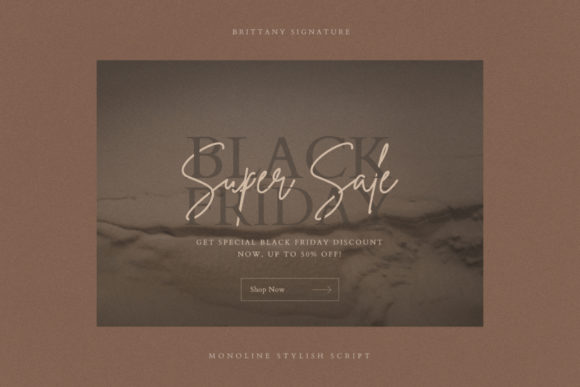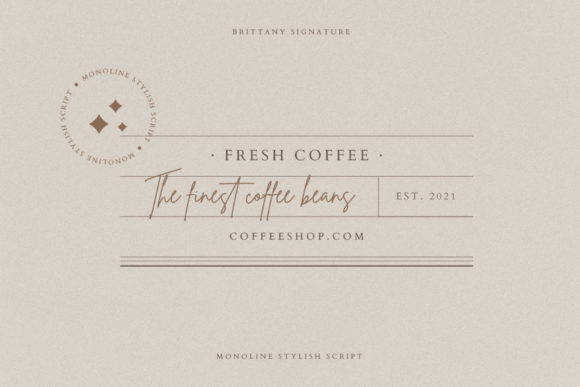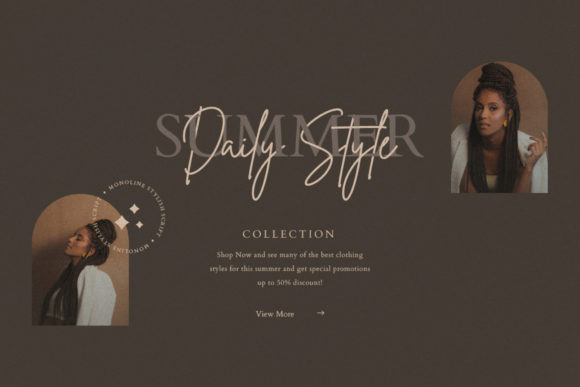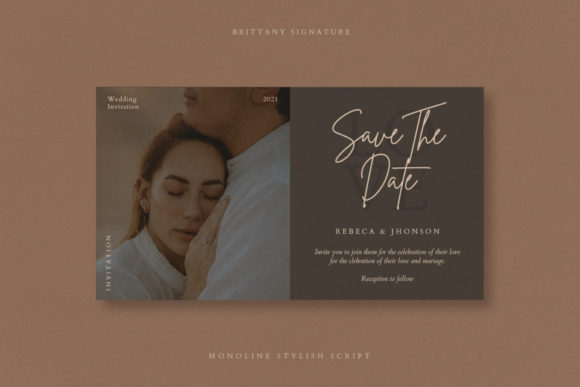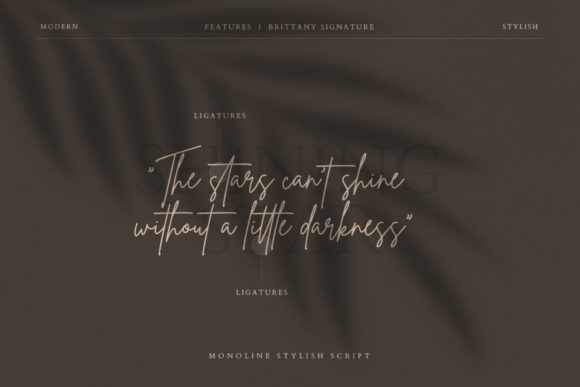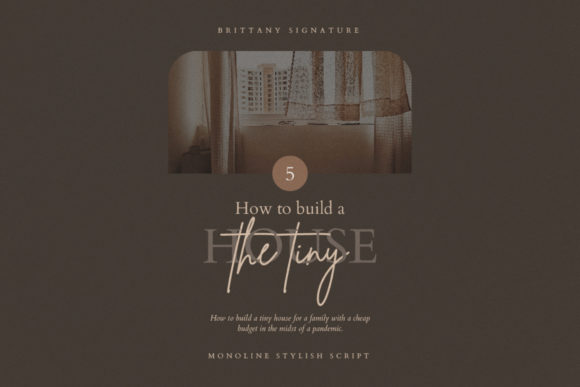
Adding a Touch of Elegance: The Power of the Brittany Signature Script Font
Have you ever been working on a design project and suddenly, the perfect font pops into your head? Maybe it’s a handwritten script that screams ‘sophistication’ or a bold sans-serif that demands attention. For many designers, the search for that elusive font is a daily challenge. But what if we told you that we’ve found the perfect solution – the Brittany Signature Script Font?
This stylish script font is designed to evoke the feeling of a personal signature, with its flowing curves and elegant inky flow. Whether you’re creating a logo, wedding invitation, or social media post, the Brittany Signature Script Font is the perfect addition to your design arsenal. Its versatility and sophistication make it a valuable asset for designers looking to add a touch of elegance to their work.
Brittany Signature Script Font Key Features
- Unique Characteristics: Elegant, cursive script with a touch of vintage charm, ideal for signature-style typography and creative projects
- Language Support: Supports multiple languages, including English, Spanish, French, German, Italian, and many more
- Font Weight: Available in regular, bold, and italic weights, allowing for flexibility in design
Brittany Signature Script Font Review
Overall, I think the Brittany Signature Script Font is a beautiful and elegant font. It’s perfect for any design that needs a touch of sophistication and luxury. The script style is well-executed and looks great for headings, titles, and even short paragraphs.
The font’s best features include:
- ✨ Beautiful, flowing lines that give it a high-end feel.
- ✨ A wide range of ligatures, which makes it easy to set up and use.
- ✨ High-quality glyphs and a well-designed character set.
However, I do have some concerns:
- ⚠️ Some of the letterforms can be quite tight, which may make it difficult to read for people with visual impairments.
Overall, I would recommend the Brittany Signature Script Font for designers who are looking for a high-end, luxurious feel in their designs. Just be aware of the potential limitations and take them into consideration when choosing this font for your project.
The Brittany Signature Script Font is ideal for:
- Business cards and stationery.
- Special occasion invitations and announcements.
Tip: Use the Brittany Signature Script Font to add a touch of elegance and sophistication to your designs.